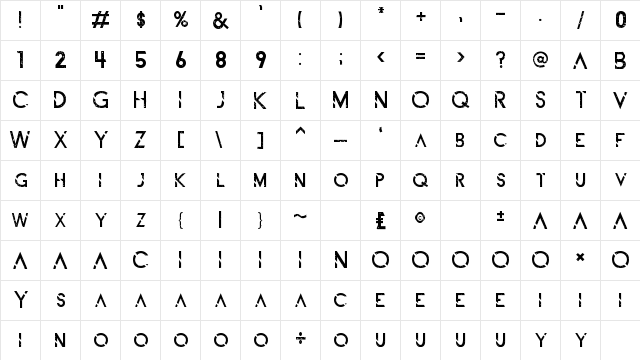
ALDITH Grunge Regular
| Foundry | Edric Studio |
| Designer | Aghnia |
Design Context for ALDITH Grunge Typeface
ALDITH Grunge trades polish for personality, using distressed and eroded forms to bring grit and attitude to creative work.
Suited to punk-influenced zines, underground music branding, streetwear, and raw, anti-corporate design.